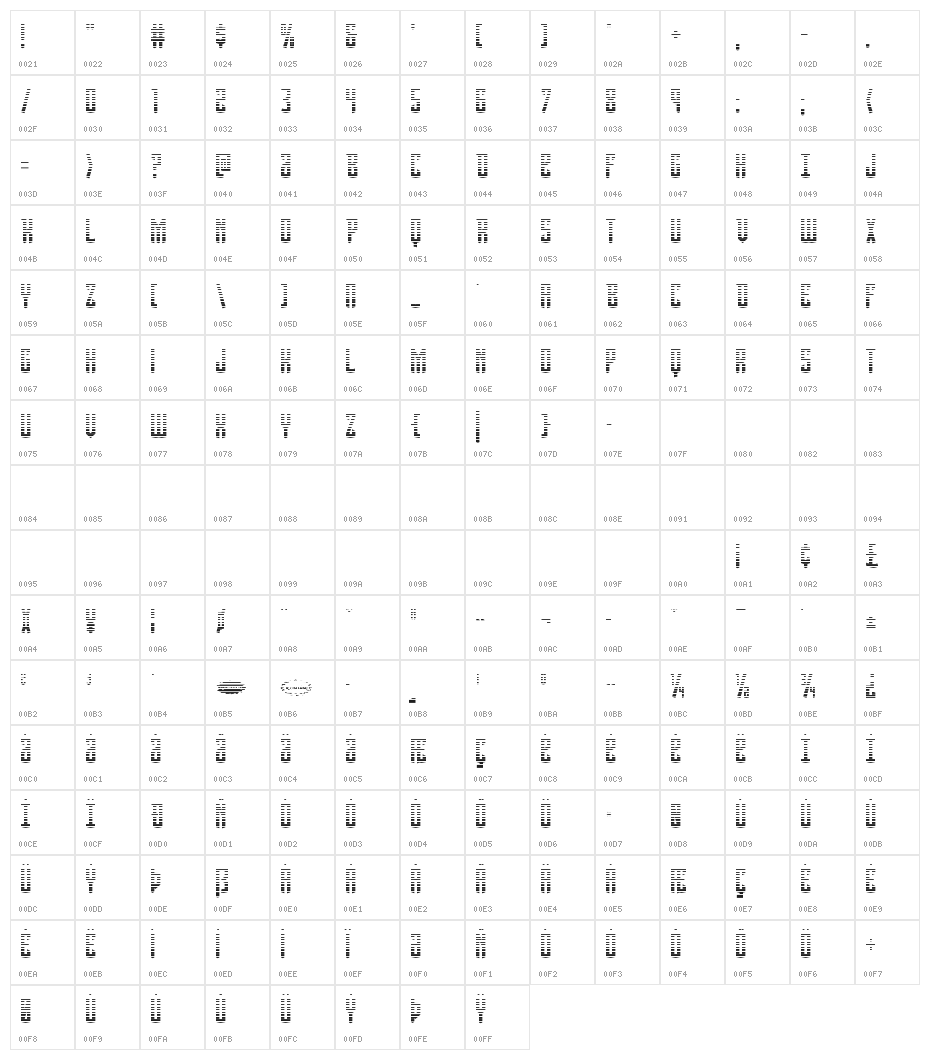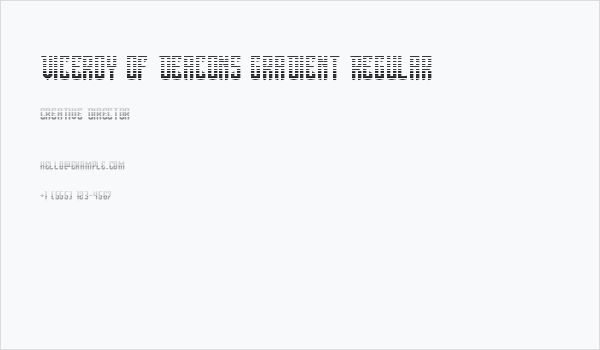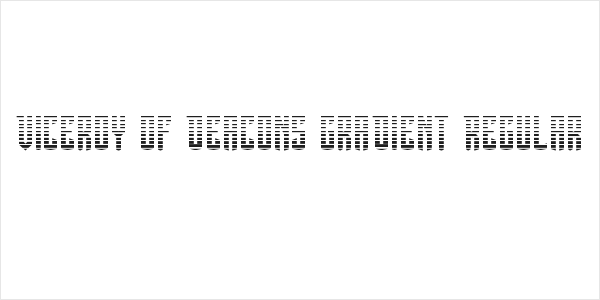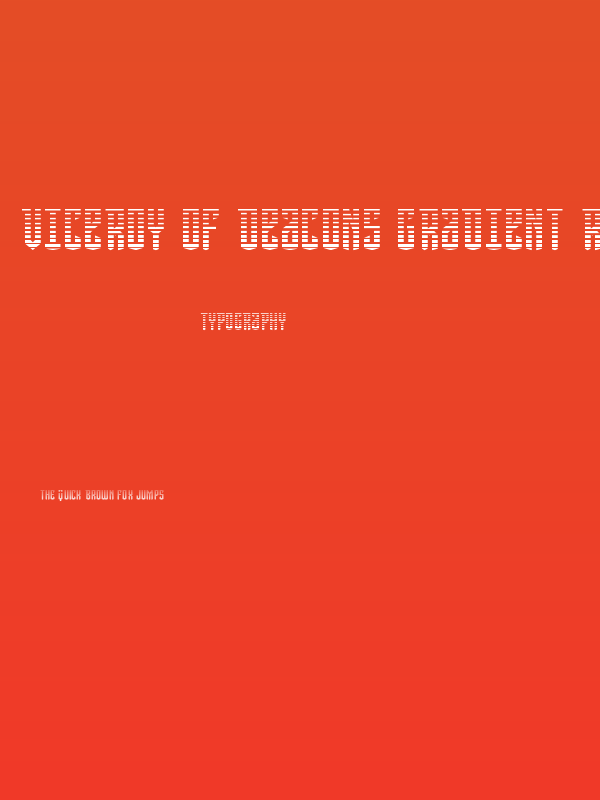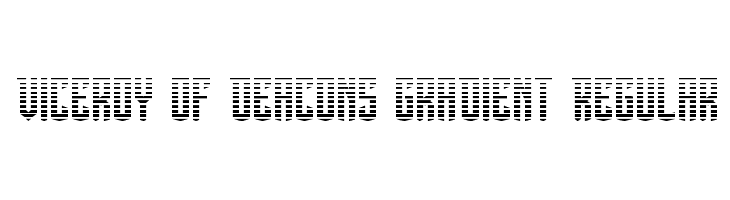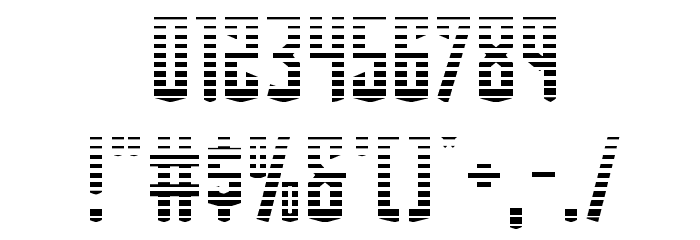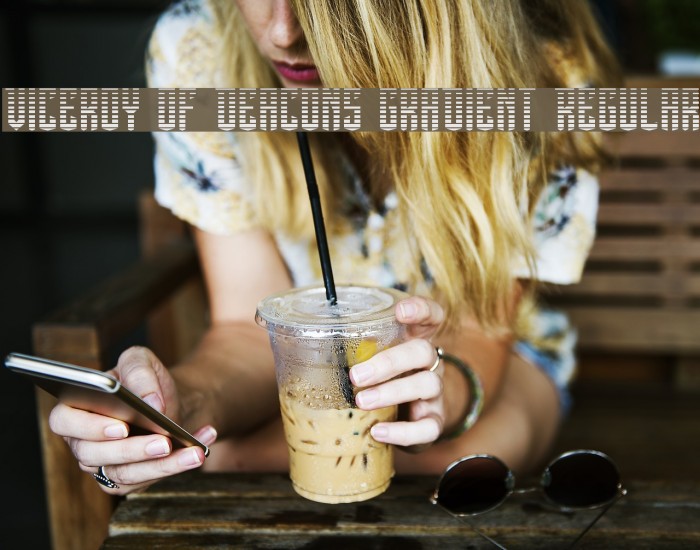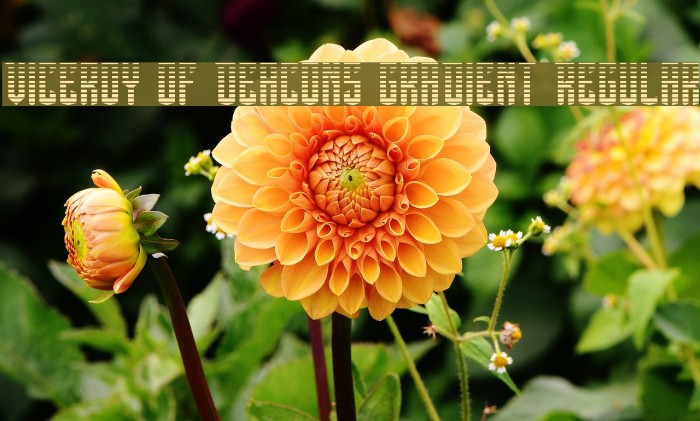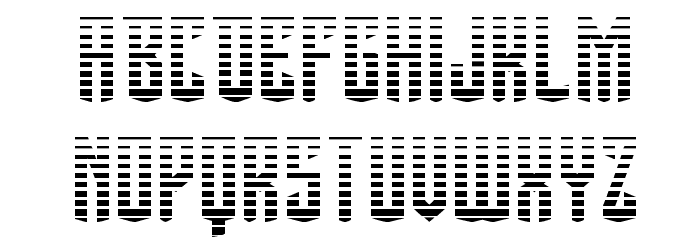
Viceroy of Deacons Gradient Regular Font
Viceroy of Deacons Gradient Regular Description
This font features a unique gradient effect within each character, creating a striking visual impact. The design is bold and geometric, with a modern twist that incorporates horizontal lines to form each letter and number. The uppercase and lowercase letters maintain a consistent style, emphasizing uniformity and structure. The numerals and special characters follow the same pattern, ensuring a cohesive look across all elements. This font stands out due to its decorative nature, making it ideal for eye-catching designs.
| Proposed Projects | Ideal for posters, branding, and digital artwork where a modern and striking appearance is desired. |